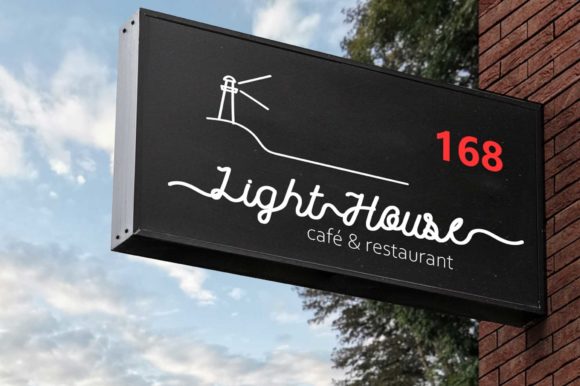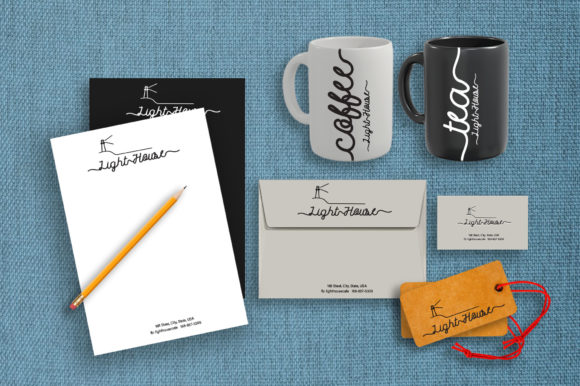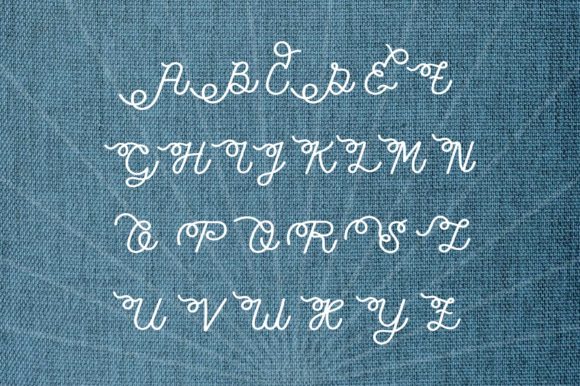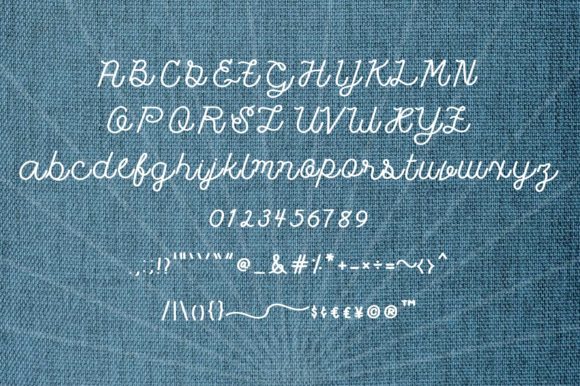
LightHouse Font
About LightHouse Font
LightHouse is a beautiful and delicate handwritten font that exudes a vintage charm. With its elegant and timeless style, LightHouse adds a touch of nostalgia and sophistication to any design.
The delicate and vintage nature of LightHouse makes it a versatile font that can be used for various purposes. Whether you’re working on branding, packaging, invitations, greeting cards, or any other creative project, LightHouse has the potential to elevate your designs and give them a unique and refined look.
The timeless quality of LightHouse makes it suitable for a wide range of topics and themes. Whether you’re creating designs for weddings, fashion, travel, or any other subject, LightHouse brings a touch of elegance and vintage flair that adds a special charm to your creations.
LightHouse is a font that stands out in its simplicity and refined elegance. The letterforms are carefully crafted with clean and graceful lines, giving them a sense of sophistication and beauty. The vintage-inspired details and subtle imperfections add character and authenticity to the font, making it feel handcrafted and unique.
In addition to its visual appeal, LightHouse is also versatile in terms of its application. It works well for both large-scale designs, such as posters and banners, as well as smaller elements like logos, headlines, and captions. Its legibility and balance ensure that your message is conveyed effectively, while its vintage aesthetic adds a distinctive touch.
LightHouse is a valuable addition to your font library because of its ability to enhance any creation. Whether you’re designing for print or digital media, LightHouse can bring a touch of elegance and vintage charm that sets your designs apart. Its versatility, timeless appeal, and attention to detail make it a go-to font for creating captivating and memorable visuals.
In conclusion, LightHouse is a delicate and vintage styled handwritten font that adds a touch of nostalgia and sophistication to any design. Its simplicity, elegance, and versatility make it an asset to your font library, capable of elevating any creation. Whether you’re working on branding, packaging, invitations, or any other project, LightHouse brings a timeless charm that captivates and delights.